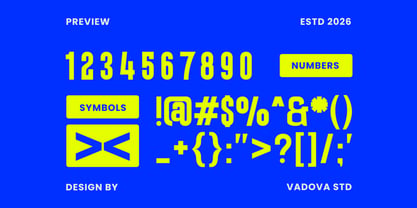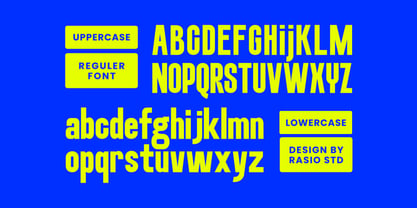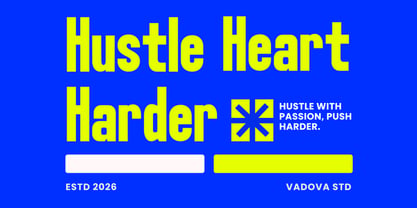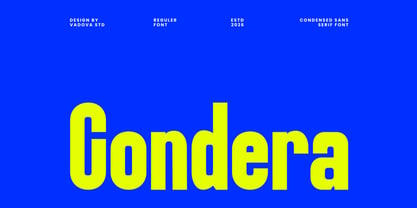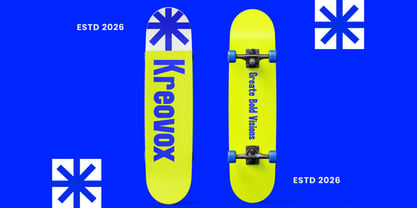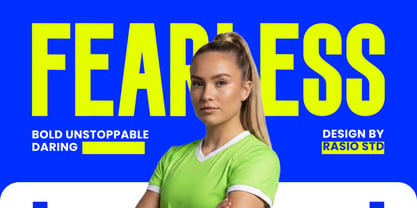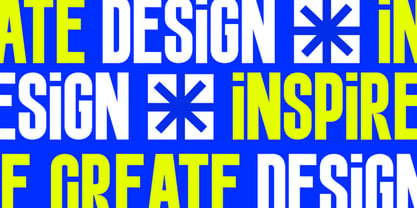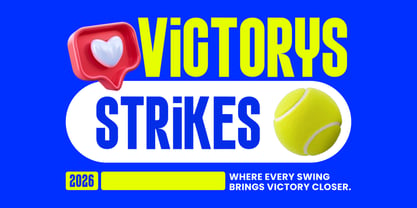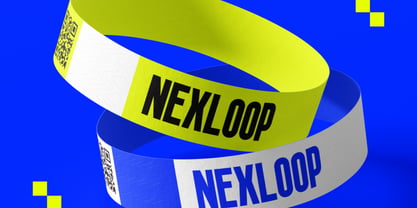
Condera
Condera is a bold and modern condensed sans serif typeface designed for strong visual impact and efficient use of space. With its tall proportions, clean geometric structure, and balanced stroke weight, this font delivers a sleek contemporary look perfect for modern branding and editorial layouts. Condera is designed for modern design projects that require strong and space-efficient typography. It works particularly well for branding, posters, editorial layouts, advertising campaigns, packaging design, website headers, sports graphics, and digital media where bold condensed typography enhances visual impact.